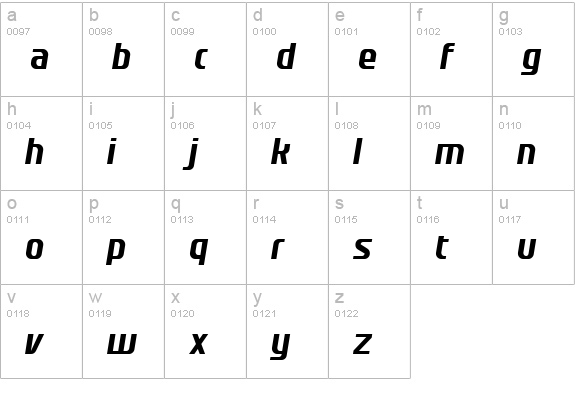
Introducing the captivating and vibrant Red Shirt font, a bold and eye-catching typeface that is sure to make a lasting impression. Perfect for adding a touch of personality and excitement to any design project, this font features a unique blend of sharp edges and smooth curves, resulting in a visually appealing and modern aesthetic. One of the standout features of the Red Shirt font is that it is completely free. Yes, you read that right – this stunning font can be downloaded and used without any cost whatsoever. Whether you are a professional graphic designer looking to add some flair to your latest project or a casual enthusiast searching for a font that stands out from the rest, Red Shirt is the ideal choice. To get your hands on this remarkable font, simply head over to FontsMarket.com, where it is freely available for download. FontsMarket.com is a trusted online platform that offers a wide range of high-quality fonts, and the inclusion of Red Shirt in their collection further emphasizes its exceptional caliber. With Red Shirt, you can effortlessly elevate your designs to new heights. Whether you are creating eye-catching posters, attention-grabbing logos, or stunning social media graphics, this font will bring your vision to life with its bold and dynamic presence. Its versatility ensures that it can be used across various design styles and genres, making it a valuable asset for any creative project. Don't miss out on the opportunity to enhance your designs with the captivating Red Shirt font. Download it for free today at FontsMarket.com and unleash your creativity like never before.